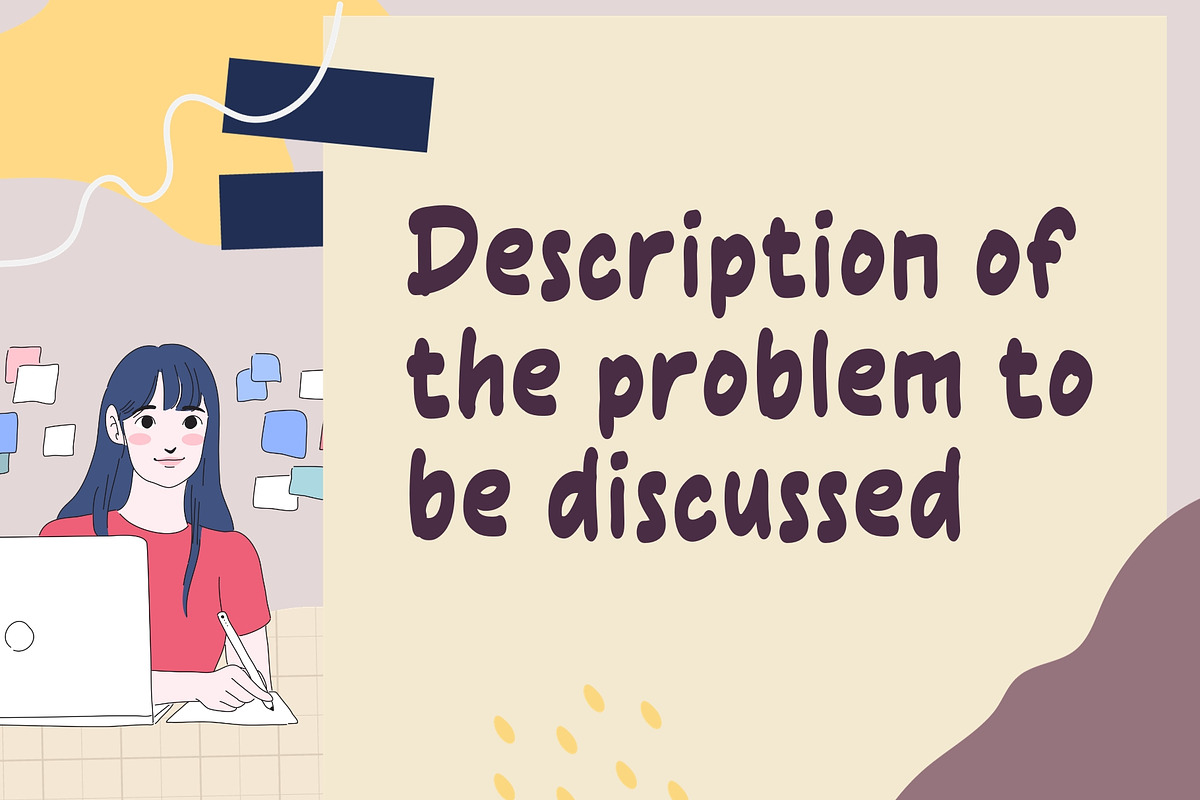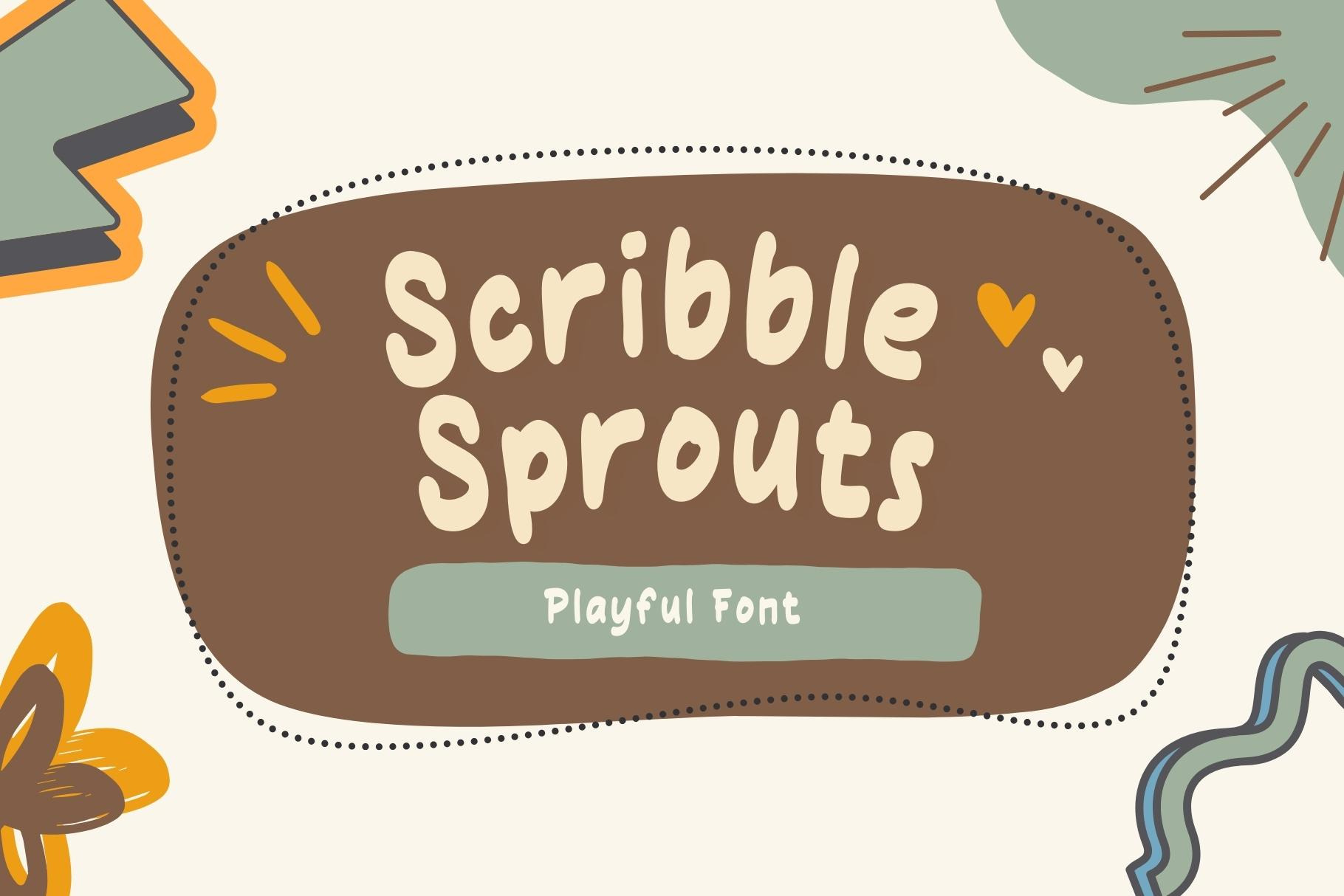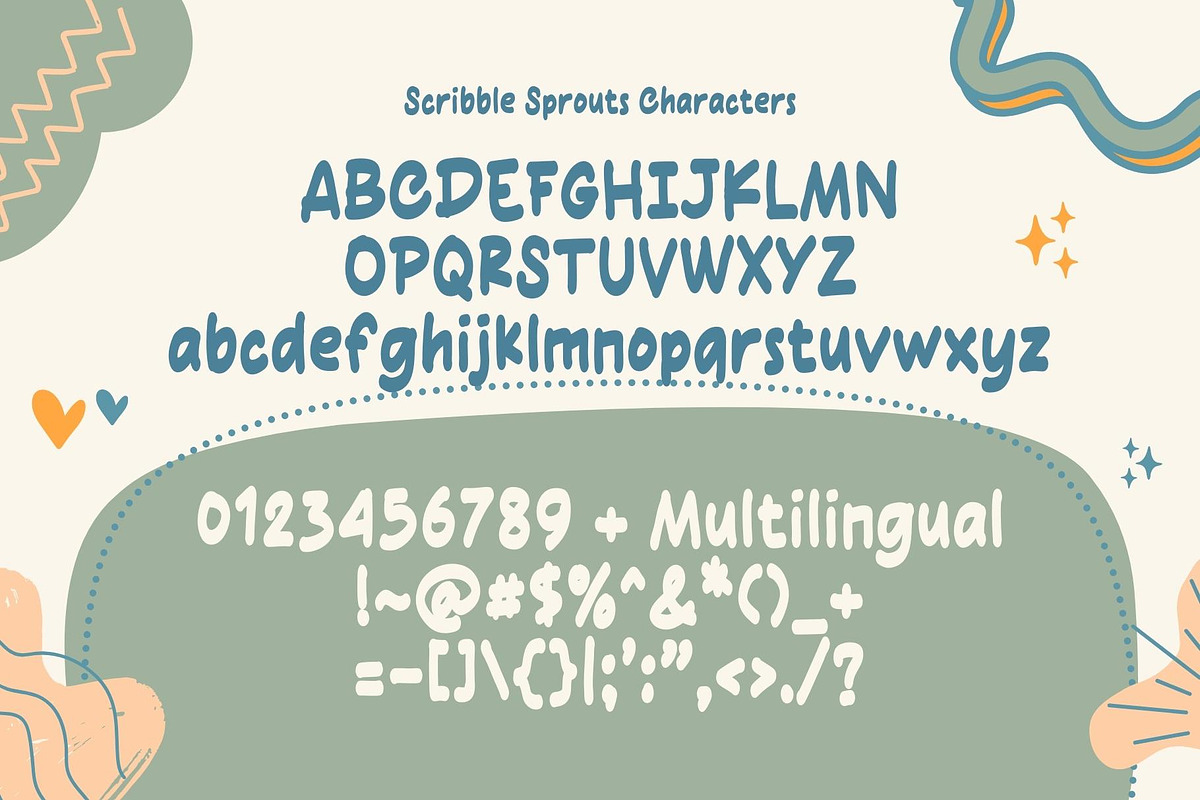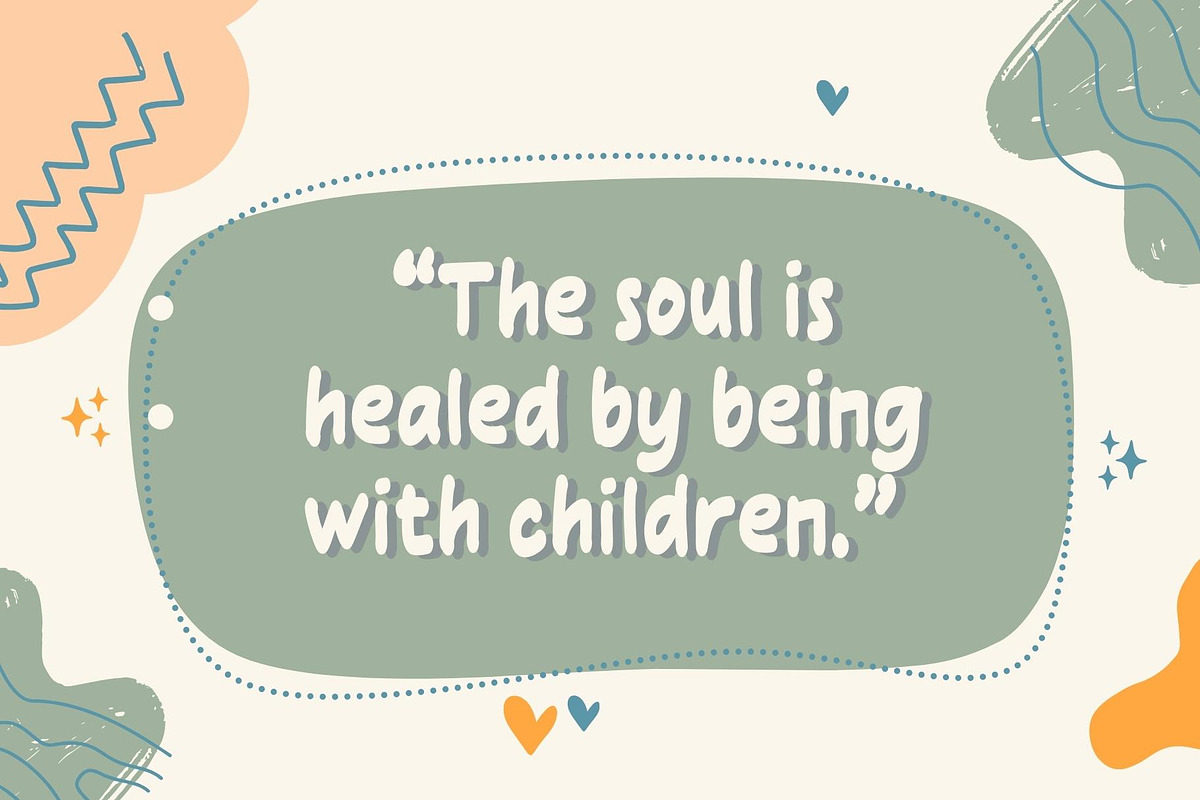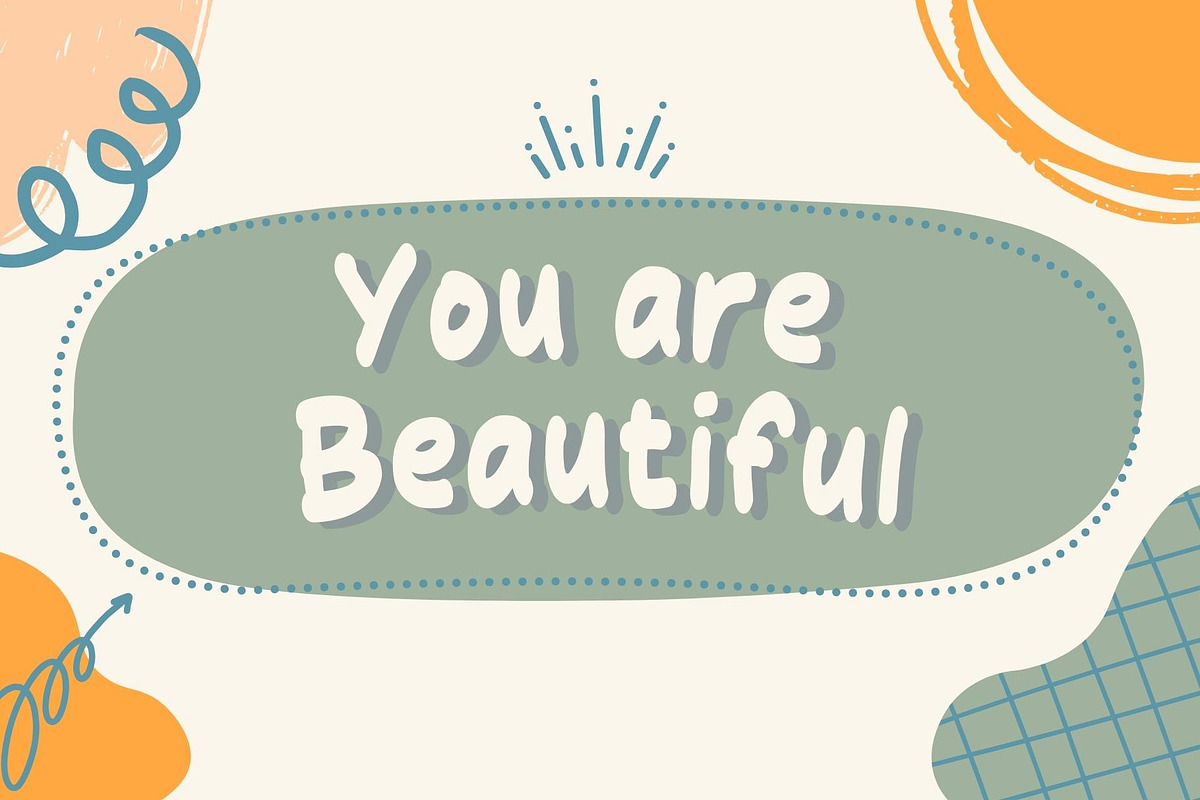
Scribble Sprouts - Playful Font
Scribble Sprouts - is a Handwritten playful font with bold letterforms that adds a delightful touch of personality to any design.